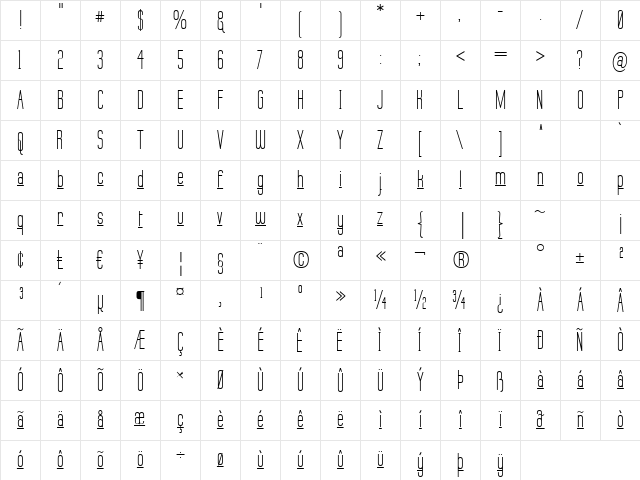
Labtop Underscore Regular
Design Context for Labtop Underscore
Labtop Underscore is a composed and adaptable typeface that performs quietly and consistently across a wide range of design contexts.
Pro Tip: Use Labtop Underscore in both headline and body roles to test its range before committing to a single application.